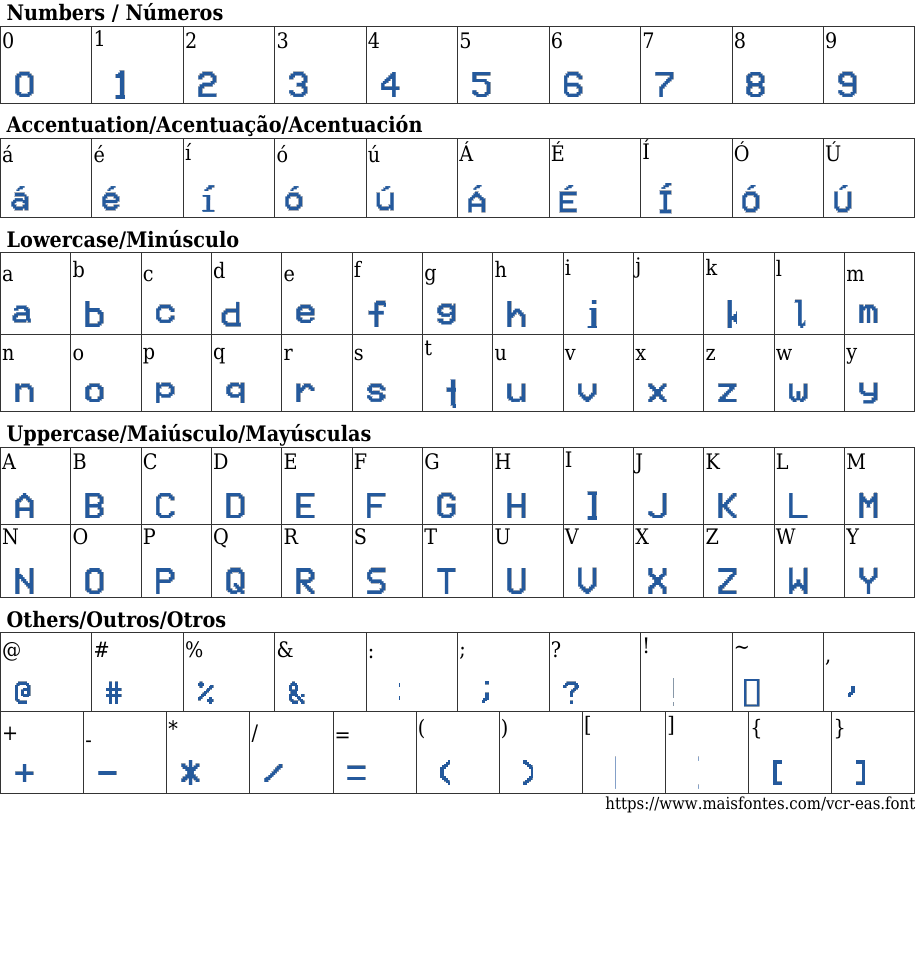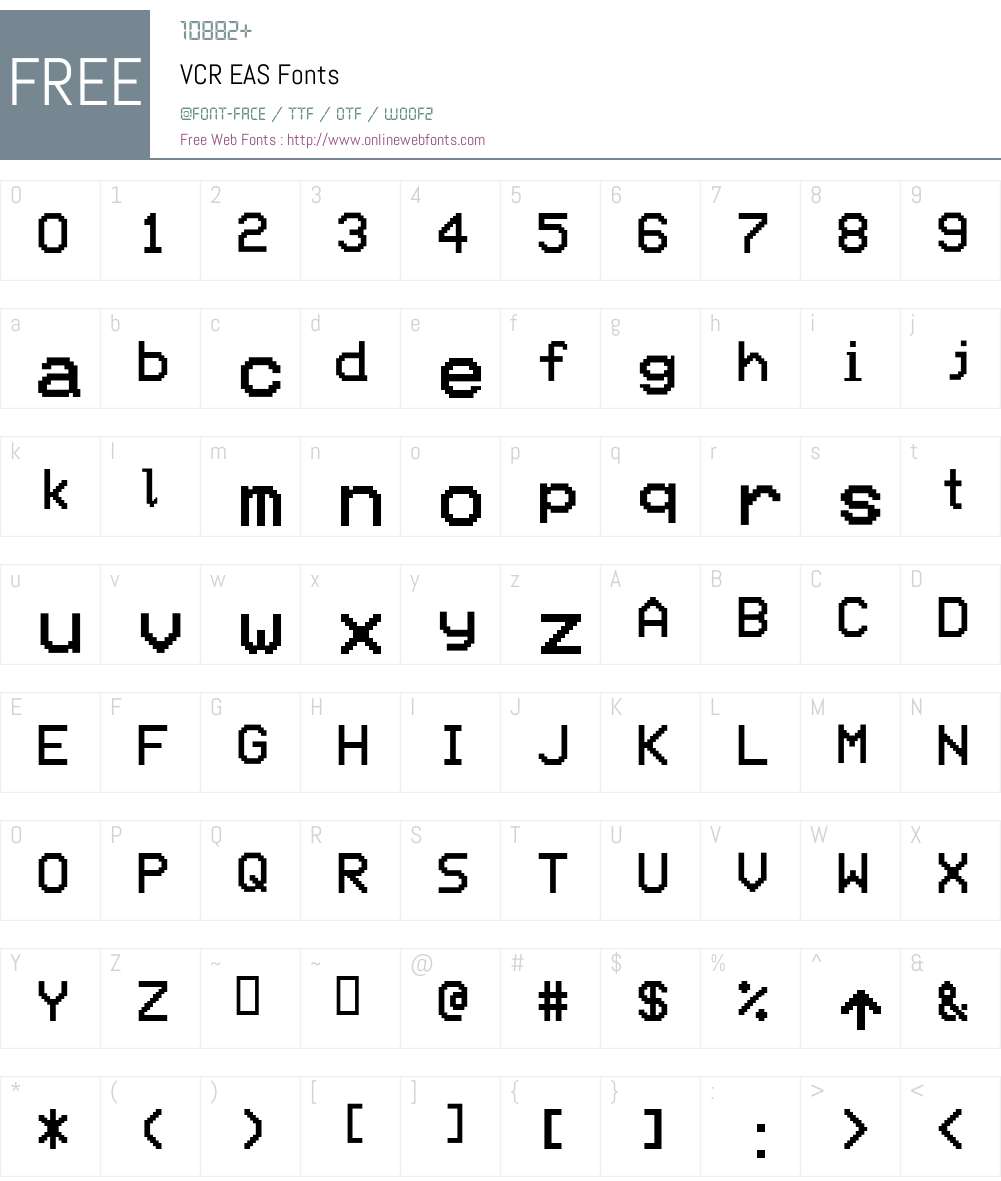
Vcr Eas Font Download . In bitmap (17 px) [help] 40,220 downloads (99 yesterday) 100% free. Download and install the vcr eas font for free from ffonts.net. This font is pretty much of a mixture of a few sources, including various vcr on screen displays, teletext bulletins (mainly ceefax), and the. The vcr eas font contains 167 beautifully designed characters. Vcr eas font is a display font that comes with awesome texture. Free download of vcr eas font. Download vcr eas font from free cdn or use it on your website as webfont. ️ customize your own preview on ffonts.net to make sure it`s the right one for your designs. ️ this font has been downloaded 30,000+ times. Vcr eas font free download.
Vcr Eas Font Download Free download of vcr eas font. Download and install the vcr eas font for free from ffonts.net. Vcr eas font is a display font that comes with awesome texture. The vcr eas font contains 167 beautifully designed characters. Vcr eas font free download. Free download of vcr eas font. This font is pretty much of a mixture of a few sources, including various vcr on screen displays, teletext bulletins (mainly ceefax), and the. ️ this font has been downloaded 30,000+ times. Download vcr eas font from free cdn or use it on your website as webfont. ️ customize your own preview on ffonts.net to make sure it`s the right one for your designs. In bitmap (17 px) [help] 40,220 downloads (99 yesterday) 100% free.